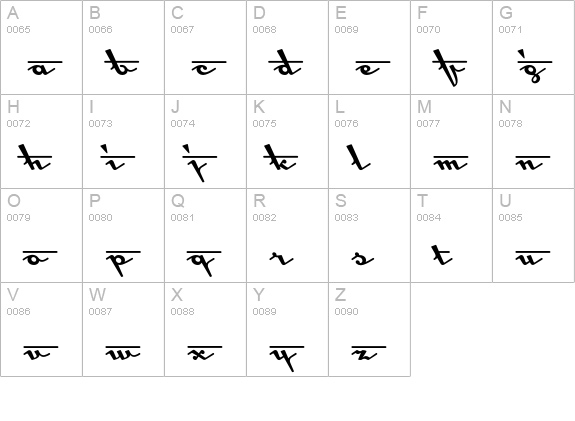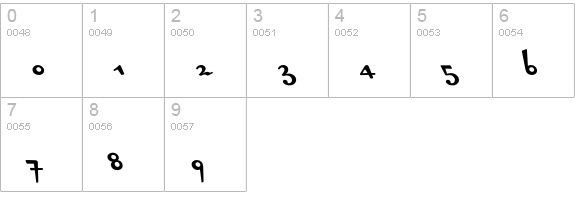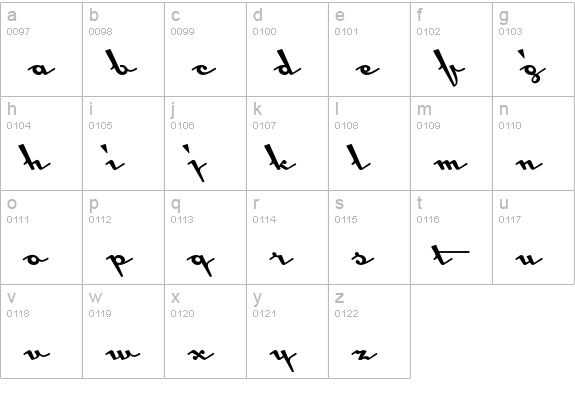
Cottingley font is a charming and elegant typeface that exudes a sense of sophistication and grace. With its delicate serifs and flowing lines, this font is perfect for adding a touch of class to any design project. Whether you're creating invitations, branding materials, or signage, Cottingley font will elevate your work and make a lasting impression. What makes Cottingley font even more appealing is that it is available for free download at FontsMarket.com. Yes, that's right - you can enhance your designs with this exquisite font without spending a dime. So why wait? Head over to FontsMarket.com today and add Cottingley font to your collection!